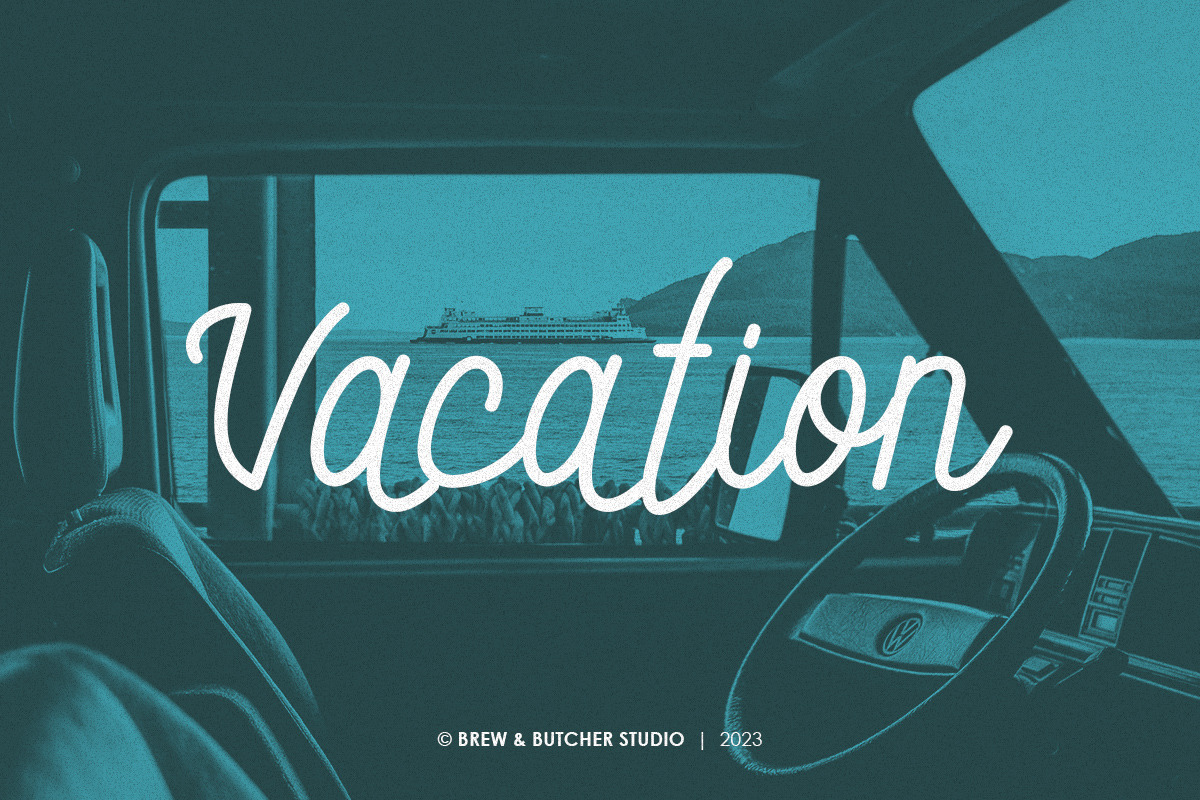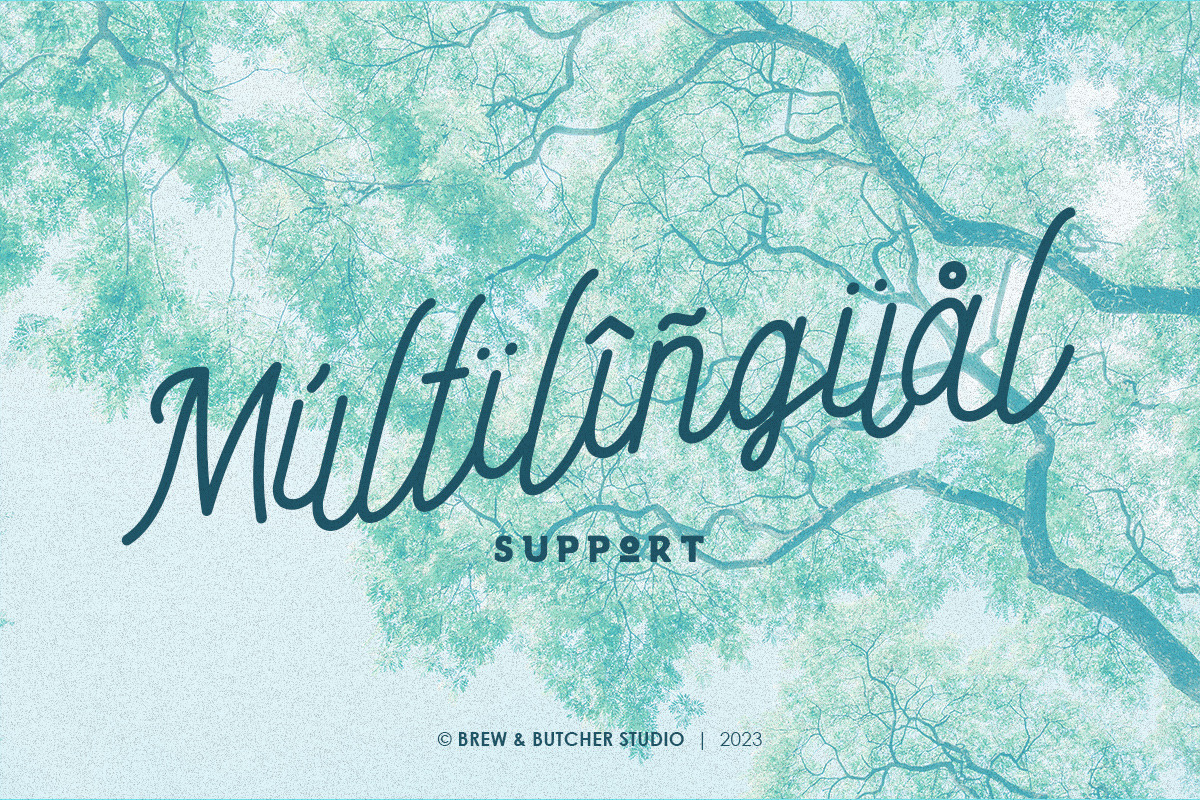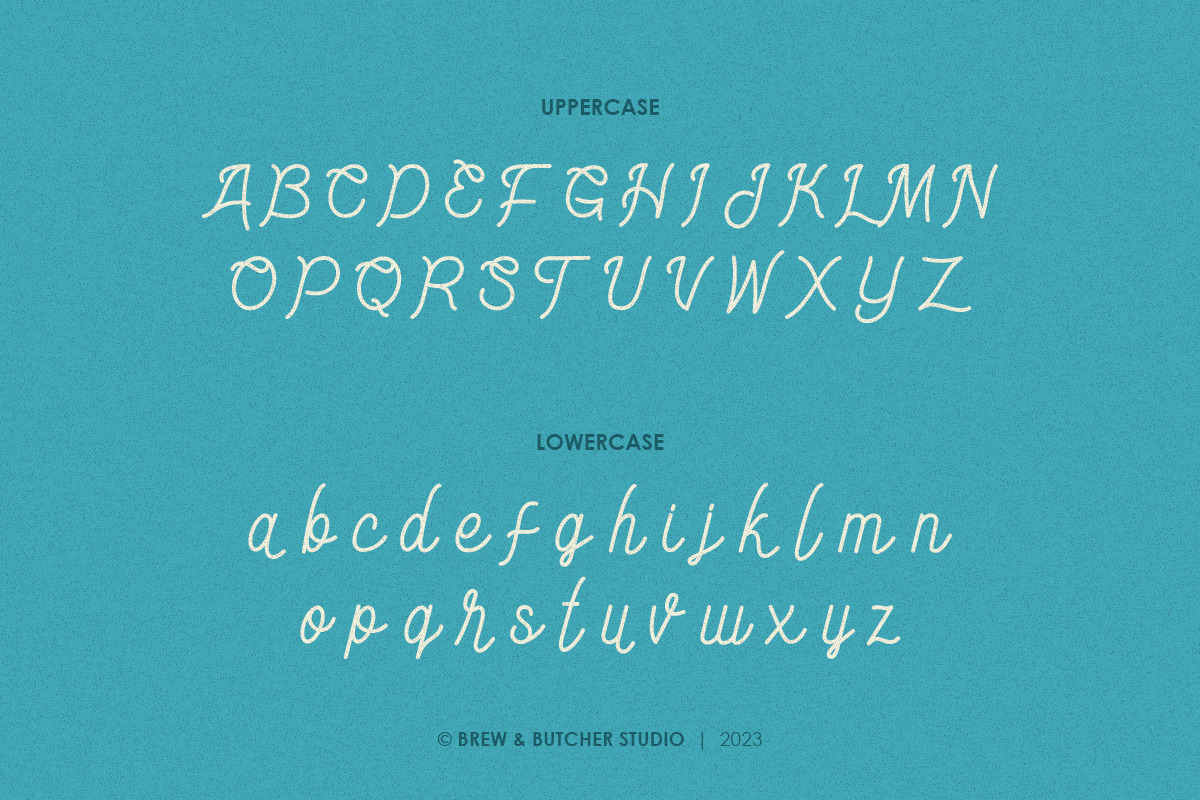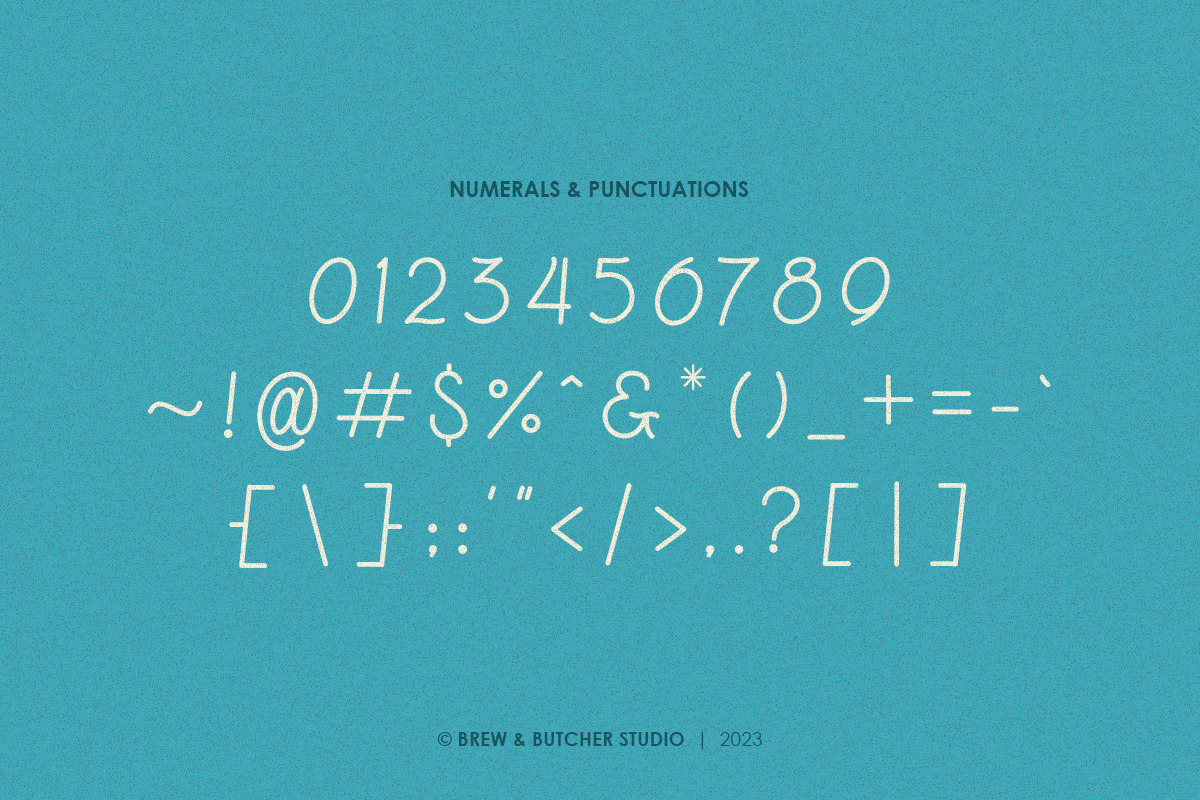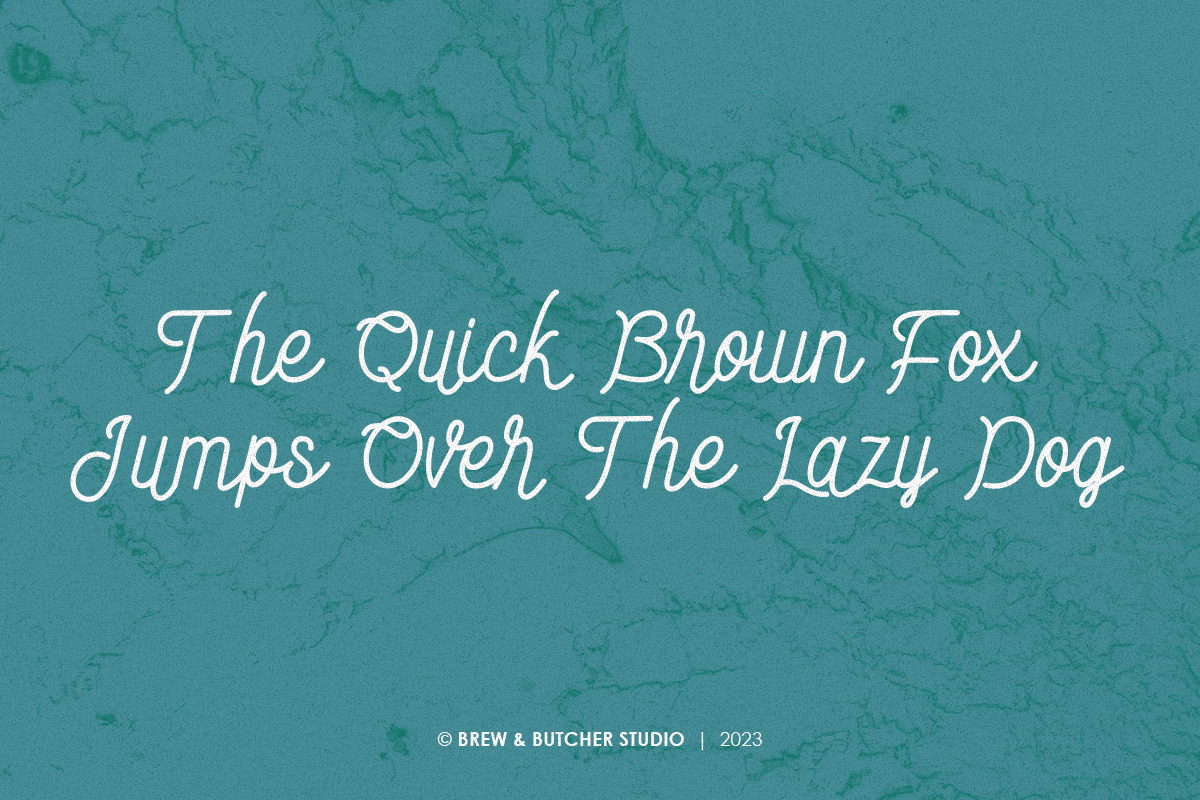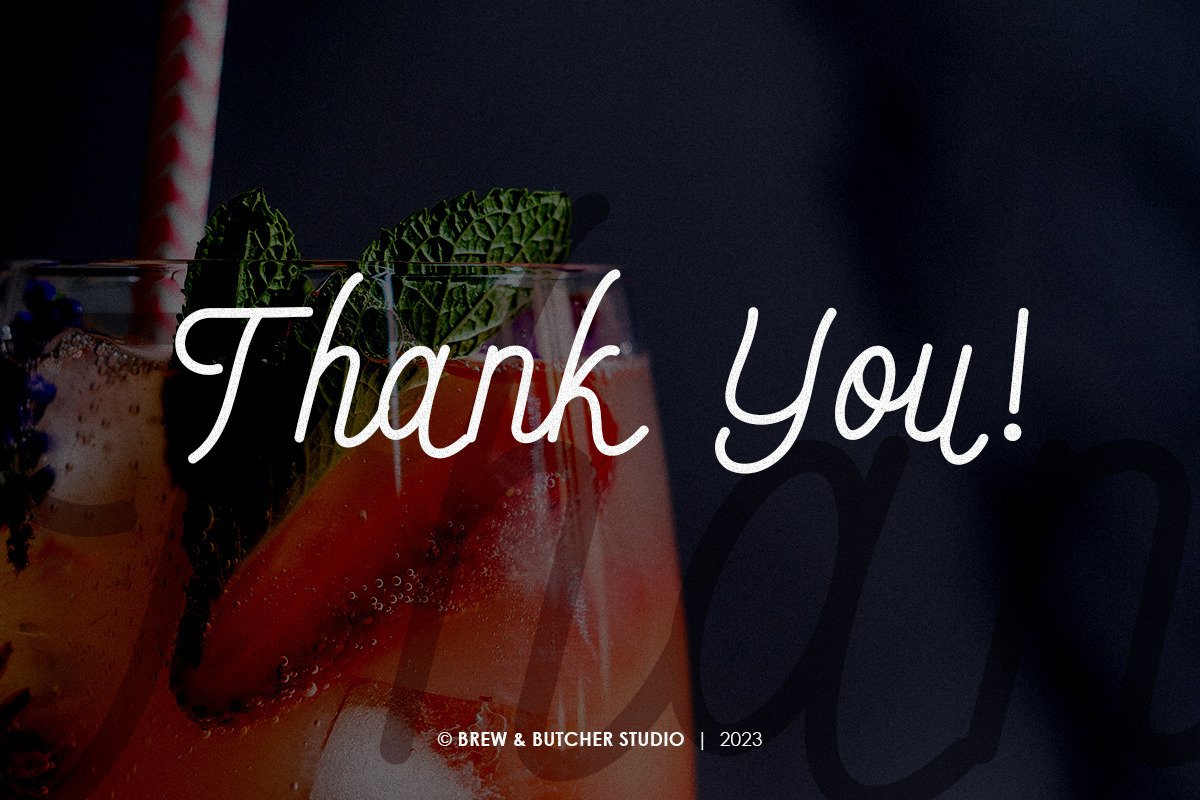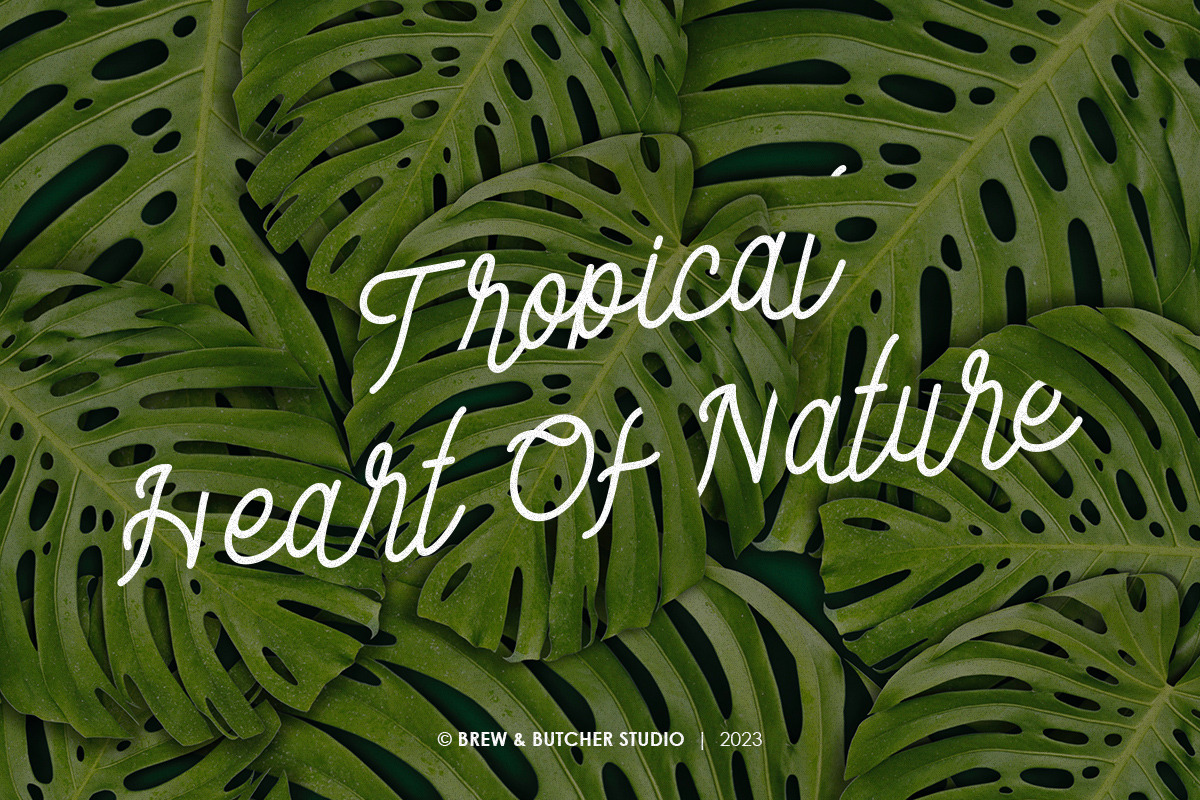
Endago | Monoline Typeface
Endago is a monoline font style, with simply and unique line. Inspired by a line that gives unity and connection in every plot. This font is best to use for header or headline, poster, flyer, banner, landingpage, portfolio, name write, album covers, and etc.
- Multilanguage